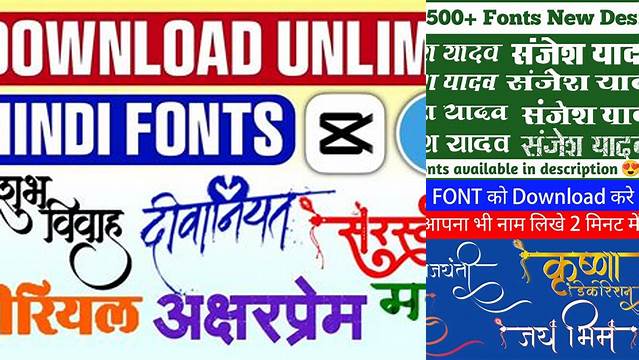
Download Hindi Calligraphy Fonts For PixelLab
Hey guys! Are you looking to add a unique touch to your PixelLab projects? One of the best ways to do that is by using stunning Hindi calligraphy fonts. In this article, we'll dive deep into the world of Hindi calligraphy fonts, where you can find them, and how to use them effectively in PixelLab. So, let’s get started and make your designs pop!
Why Use Hindi Calligraphy Fonts?
Using Hindi calligraphy fonts can significantly elevate your designs, adding a touch of elegance and cultural richness. These fonts are not just about writing; they are about creating art. Calligraphy, in general, has a long and storied history, and when applied to Hindi, it brings forth a unique aesthetic that's both traditional and contemporary. When you incorporate these fonts into your projects, you're not just adding text; you're adding a piece of art that speaks volumes about your creativity and attention to detail.
First off, let's talk about the visual appeal. Hindi calligraphy fonts have this incredible ability to transform ordinary text into eye-catching masterpieces. The intricate strokes and elegant curves draw the viewer in, making your message not just readable but also visually engaging. Whether you're designing a poster, a social media graphic, or a logo, a well-chosen Hindi calligraphy font can make your work stand out from the crowd. The visual richness they bring is unparalleled, and they can add a layer of sophistication that standard fonts simply can’t match.
Secondly, consider the cultural significance. Hindi is a language with deep cultural roots, and calligraphy has been an integral part of its artistic expression for centuries. By using Hindi calligraphy fonts, you're tapping into this rich heritage and adding a sense of authenticity and tradition to your designs. This can be particularly important if your project is related to cultural events, religious themes, or anything that celebrates Indian heritage. The fonts themselves carry a story, and by using them, you're narrating a part of that story in your design. This cultural resonance can create a deeper connection with your audience, making your message more impactful and memorable.
Moreover, the versatility of these fonts is something to marvel at. There's a vast range of Hindi calligraphy fonts available, each with its unique style and character. Some fonts are bold and dramatic, perfect for headlines and titles, while others are delicate and flowing, ideal for body text and captions. This variety allows you to choose the perfect font for any project, ensuring that your message is conveyed in the most effective way possible. You can experiment with different styles to find the one that best complements your design's overall theme and aesthetic. Whether you’re going for a modern, minimalist look or a traditional, ornate feel, there’s a Hindi calligraphy font out there that will fit the bill.
Another significant advantage of using Hindi calligraphy fonts is their ability to create a unique identity for your brand or project. In a world where visual content is king, having a distinctive style is crucial for standing out. By incorporating these fonts into your branding materials, you can create a memorable and recognizable visual identity. Imagine a logo that uses a beautifully crafted Hindi calligraphy font – it immediately sets your brand apart, conveying a sense of sophistication and cultural awareness. This uniqueness can help you attract the right audience and build a strong brand presence.
Lastly, the creative freedom that Hindi calligraphy fonts offer is immense. These fonts aren't just about the letters themselves; they're about the artistic possibilities they unlock. You can play with different sizes, colors, and effects to create stunning visual compositions. Experiment with layering, shadows, and gradients to add depth and dimension to your text. The possibilities are endless, and the only limit is your imagination. This creative freedom can be incredibly liberating, allowing you to express your artistic vision in new and exciting ways.
In conclusion, using Hindi calligraphy fonts is a fantastic way to enhance your designs. They bring visual appeal, cultural significance, versatility, uniqueness, and creative freedom to your projects. So, if you're looking to add that extra spark to your work, consider exploring the world of Hindi calligraphy fonts. You might just discover your new favorite design tool!
Where to Download Hindi Calligraphy Fonts
Finding the right font can sometimes feel like searching for a needle in a haystack, but don't worry, guys! There are some fantastic resources out there where you can download high-quality Hindi calligraphy fonts for PixelLab. Knowing where to look is half the battle, so let’s explore some of the best places to find these beautiful fonts.
First and foremost, let's talk about Google Fonts. Google Fonts is a treasure trove for designers, offering a vast library of fonts that are not only free but also incredibly diverse. The platform is user-friendly, making it easy to search for specific styles, including Hindi calligraphy. What's great about Google Fonts is that all the fonts are open-source, meaning you can use them for both personal and commercial projects without worrying about licensing issues. This is a huge advantage, especially if you're working on professional projects. The quality of the fonts on Google Fonts is consistently high, and they are optimized for web and print use, ensuring that your designs look great no matter where they are displayed.
To find Hindi calligraphy fonts on Google Fonts, simply use the search bar and type in keywords like "Hindi calligraphy" or "Devanagari." You can also filter your search by language to narrow down the results. Once you find a font you like, you can preview it in different sizes and styles, and even see how it looks with your own text. Downloading the font is straightforward – just click the download button, and you’ll get a zip file containing the font files. Google Fonts also provides helpful information about the font’s designers and its usage, which can be useful if you want to learn more about the font’s background and intended purpose.
Another excellent resource is Font Squirrel. Like Google Fonts, Font Squirrel offers a wide selection of free fonts, including some stunning Hindi calligraphy options. Font Squirrel is particularly known for its focus on high-quality, commercial-use fonts, making it a reliable choice for designers working on professional projects. The website has a clean and intuitive interface, making it easy to browse and find the fonts you need. You can search by style, language, and other criteria, ensuring that you can quickly narrow down your options. Font Squirrel also offers a handy font identifier tool, which can help you identify a font if you have an image of it, which can be incredibly useful if you come across a font you like but don’t know its name.
One of the standout features of Font Squirrel is its @font-face kit generator. This tool allows you to create custom font kits for your website, ensuring that your fonts display correctly across different browsers and devices. This is particularly important for web design projects, where consistency and readability are crucial. The @font-face kit generator simplifies the process of embedding fonts into your website, saving you time and effort.
DaFont is another popular platform where you can find a wide variety of fonts, including many Hindi calligraphy styles. DaFont is known for its extensive collection of user-submitted fonts, which means you’ll find a diverse range of styles, from traditional to modern and everything in between. While the quality of fonts on DaFont can vary, there are definitely some hidden gems to be found, especially in the calligraphy category. The site is easy to navigate, with clear categories and search options, making it simple to find what you’re looking for.
When using DaFont, it’s essential to pay attention to the licensing information for each font. Some fonts are free for personal use only, while others can be used for commercial projects. Make sure to check the license agreement before using a font to avoid any legal issues. DaFont also has a helpful section where you can contact the font’s creator if you have any questions about its usage. This direct line of communication can be invaluable, especially if you have specific requirements or need clarification on the font’s license.
For those looking for more premium options, Adobe Fonts is an excellent choice. Adobe Fonts is part of the Adobe Creative Cloud subscription, giving you access to a vast library of high-quality fonts that are seamlessly integrated with Adobe’s design software, such as Photoshop and Illustrator. If you’re already an Adobe Creative Cloud user, this is a fantastic way to expand your font collection and streamline your workflow. Adobe Fonts includes a wide range of Hindi calligraphy fonts, all of which are professionally designed and optimized for both print and digital use.
The integration with Adobe’s software is a major advantage of Adobe Fonts. You can easily browse and activate fonts directly from within your design applications, making it simple to experiment with different styles and find the perfect fit for your project. Adobe Fonts also offers unlimited font downloads, so you can try out as many fonts as you like without any restrictions. This flexibility can be incredibly beneficial when you’re working on a complex project that requires a specific look and feel.
In addition to these platforms, there are also several smaller websites and individual designers who offer Hindi calligraphy fonts. Exploring these resources can lead you to discover unique and one-of-a-kind fonts that you won’t find anywhere else. Websites like MyFonts and Creative Market are great places to browse for premium fonts, while Behance and Dribbble are excellent platforms for discovering the work of independent designers. Don’t be afraid to venture off the beaten path and explore these lesser-known resources – you might just find your new favorite font!
In conclusion, finding Hindi calligraphy fonts for PixelLab is easier than you might think. With resources like Google Fonts, Font Squirrel, DaFont, and Adobe Fonts, you have a wealth of options at your fingertips. Whether you’re looking for free fonts or premium options, there’s something out there for every project and budget. So go ahead, explore these resources, and start adding some beautiful Hindi calligraphy to your designs!
How to Install Fonts in PixelLab
Alright, you've found some amazing Hindi calligraphy fonts, and now you're probably wondering how to get them into PixelLab. Don't worry, guys, it's a pretty straightforward process! Installing fonts in PixelLab is simple and quick, and once you've done it a couple of times, you'll be a pro. Let's break it down step-by-step so you can start using those stunning fonts in your designs.
First things first, you need to download the font files to your device. Most font websites will provide the fonts in a ZIP file, which contains the actual font files. These files usually have a .ttf (TrueType Font) or .otf (OpenType Font) extension. These are the file formats that PixelLab can recognize, so make sure you're downloading the correct type of file. Once you've downloaded the ZIP file, you'll need to extract the font files from it. This is where a file manager app comes in handy. If you don't already have one, there are plenty of free file manager apps available on the Google Play Store, such as Files by Google or Solid Explorer. These apps make it easy to browse your device's storage, find the downloaded ZIP file, and extract its contents.
To extract the font files, simply open the file manager app, navigate to your downloads folder (or wherever you saved the ZIP file), and tap on the file. Most file manager apps will give you an option to extract the contents. Choose a location to extract the files – a new folder in your downloads directory is a good option – and let the app do its thing. Once the extraction is complete, you should see the .ttf or .otf font files in the chosen folder. Keep this folder in mind, as you’ll need to access it from within PixelLab.
Now that you have the font files extracted, it's time to open PixelLab. If you don't have PixelLab installed, you can download it for free from the Google Play Store. PixelLab is a fantastic mobile app for creating text-based graphics, and it’s perfect for using your new Hindi calligraphy fonts. Once PixelLab is open, you’ll see the default text on the screen. Tap on the text to select it, and then look for the “A” icon at the bottom of the screen. This icon represents text-related options. Tap on the “A” icon, and you’ll see a menu with various text editing tools.
In the text editing menu, scroll through the options until you find the “Font” option. This is where you can change the font of your text. Tap on the “Font” option, and you’ll see a list of fonts that are already installed in PixelLab. These are the default fonts that come with the app, but we want to add our own Hindi calligraphy fonts, so we need to go to a different section. At the top of the font list, you’ll see two tabs: “Fonts” and “My Fonts.” The “Fonts” tab shows the default fonts, and the “My Fonts” tab is where your custom fonts will appear. Tap on the “My Fonts” tab.
If you haven’t added any custom fonts yet, the “My Fonts” tab will be empty. Don’t worry, it’s easy to add them. At the top of the “My Fonts” tab, you’ll see two icons: a “T” icon with a plus sign and a folder icon with a plus sign. The “T” icon allows you to add individual font files, while the folder icon allows you to add an entire folder of fonts. If you have multiple Hindi calligraphy fonts to install, using the folder icon can save you time. Tap on the icon that best suits your needs.
If you tapped the “T” icon, a file browser will open, allowing you to navigate to the folder where you extracted your font files. Find the .ttf or .otf file for the font you want to install, and tap on it. The font will be added to your “My Fonts” list. If you tapped the folder icon, you’ll need to navigate to the folder where you extracted the fonts and select the folder itself. PixelLab will then scan the folder and add all the font files it finds to your “My Fonts” list.
Once the fonts are added to the “My Fonts” list, you can select them just like any other font in PixelLab. Simply tap on the font you want to use, and it will be applied to your selected text. You can then adjust the size, color, and other properties of the text as needed. Experiment with different fonts and styles to find the perfect look for your design.
If you ever want to remove a font from your “My Fonts” list, you can do so by long-pressing on the font name. A menu will appear with an option to delete the font. Keep in mind that deleting a font from PixelLab only removes it from the app; it doesn’t delete the font file from your device’s storage.
And that’s it! You’ve successfully installed Hindi calligraphy fonts in PixelLab. Now you can unleash your creativity and start designing some amazing graphics with your new fonts. Remember, practice makes perfect, so don’t be afraid to experiment and try out different combinations of fonts and styles. With a little bit of practice, you’ll be creating stunning designs in no time!
Tips for Using Hindi Calligraphy Fonts in PixelLab
Now that you've got those beautiful Hindi calligraphy fonts installed in PixelLab, let's talk about how to use them effectively. It's not just about slapping a fancy font on your design; it's about using them in a way that enhances your message and creates a visually appealing piece. So, guys, let’s dive into some tips and tricks to make your designs truly stand out using these elegant fonts.
First off, consider the context of your design. Hindi calligraphy fonts have a certain artistic flair and cultural significance, so they’re not always appropriate for every situation. Think about the overall tone and message of your design. Are you creating a poster for a cultural event? A social media graphic with an inspirational quote? Or a logo for a brand that wants to convey a sense of tradition and elegance? The context will help you determine whether a Hindi calligraphy font is the right choice and, if so, which style of font will work best.
For example, if you're designing a wedding invitation, a delicate and flowing calligraphy font can add a touch of romance and sophistication. On the other hand, if you're creating a poster for a music festival, a bolder and more dramatic font might be more appropriate. Always keep your target audience in mind as well. If you're designing for a younger audience, you might want to choose a font that's more modern and playful. If you're designing for a more traditional audience, a classic calligraphy style might be a better fit.
Secondly, pay attention to readability. Calligraphy fonts, by their nature, are often more intricate and decorative than standard fonts. While this is part of their charm, it can also make them more challenging to read, especially at smaller sizes. When choosing a Hindi calligraphy font, make sure it’s legible in the context of your design. Avoid using fonts that are too ornate or have excessively complex strokes, especially for body text or smaller captions. It’s better to choose a font that’s slightly less decorative but easier to read than one that looks beautiful but is difficult to decipher.
To ensure readability, consider the size and spacing of your text. Use a larger font size for headlines and titles, and make sure there’s enough space between the letters and lines. This will prevent the text from looking cluttered and make it easier for the viewer to read. You can also experiment with different colors and backgrounds to improve contrast and readability. A light font on a dark background or vice versa can make your text stand out and be more easily seen.
Another crucial tip is to use these fonts sparingly. Hindi calligraphy fonts are powerful and eye-catching, but they can be overwhelming if overused. Avoid using them for large blocks of text or in every element of your design. Instead, use them strategically to highlight key words or phrases, add emphasis to your headlines, or create a visual focal point. Think of them as the seasoning in a dish – a little can go a long way, but too much can ruin the entire flavor. Pair your calligraphy font with a simpler, more neutral font for body text or other supporting elements. This will create a balanced and visually harmonious design.
Experiment with different font pairings to see what works best. A classic sans-serif font like Open Sans or Roboto can complement a Hindi calligraphy font nicely, providing a clean and modern contrast. You can also try pairing different styles of calligraphy fonts together, but be careful not to create too much visual clutter. It’s often best to stick to one or two calligraphy fonts in a single design.
Furthermore, take advantage of PixelLab’s text effects and customization options. PixelLab offers a wide range of tools for enhancing your text, such as shadows, gradients, strokes, and 3D effects. These effects can add depth and dimension to your calligraphy fonts, making them even more visually appealing. Experiment with different effects to see how they can enhance your design, but again, be careful not to overdo it. Sometimes, a subtle effect is more effective than a dramatic one.
Shadows can add depth and make your text stand out from the background, while strokes can define the edges of your letters and improve readability. Gradients can add a touch of visual interest, and 3D effects can make your text pop off the screen. Play around with these options to find the right balance for your design.
Lastly, don’t be afraid to experiment and be creative. Design is all about expressing your unique vision, so don’t feel constrained by rules or conventions. Try different combinations of fonts, colors, and effects to see what you can create. The more you experiment, the more you’ll develop your own style and learn what works best for you.
Look at other designs that use Hindi calligraphy fonts for inspiration. Pay attention to how the fonts are used, the colors and effects that are applied, and the overall composition of the design. But don’t just copy what you see – use it as a starting point for your own creative exploration.
In conclusion, using Hindi calligraphy fonts in PixelLab can elevate your designs to a whole new level. By considering the context, ensuring readability, using fonts sparingly, taking advantage of PixelLab’s effects, and experimenting with creativity, you can create stunning visuals that capture attention and convey your message effectively. So, go ahead, guys, and start creating some amazing designs with your new calligraphy fonts!
So there you have it, guys! Everything you need to know about downloading and using Hindi calligraphy fonts in PixelLab. From understanding why these fonts are so impactful to knowing where to find them and how to install them, you’re now equipped to create some truly stunning designs. Remember, the key is to experiment, have fun, and let your creativity flow. Hindi calligraphy fonts can add a unique and elegant touch to your projects, so don’t hesitate to explore the possibilities and make your designs stand out from the crowd. Happy designing!